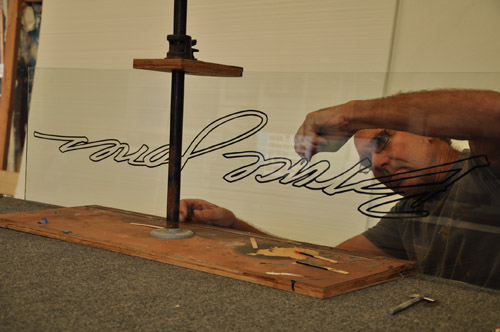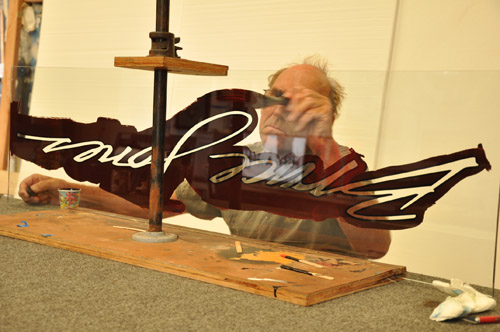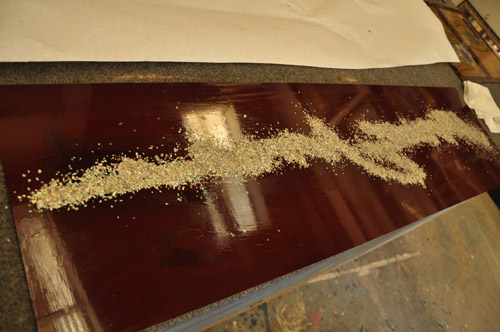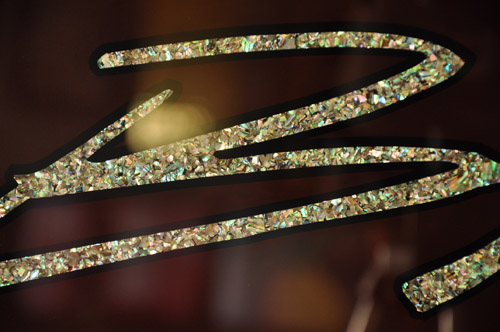
Paua Brocade glass sign
This is a glass sign for a friend that has a surf shop in Orange County. I started with black outlines , Painted the dark maroon background in and now I'am laying in the Paua Brocade. I'll let that dry awhile then give it one more coat of brocade then it go's into a frame.
I left the sign out in the sun to dry all day then went to my framer and picked up the frame. Here it is finished and ready to deliver tomorrow.
The size is 15 x 36
I like the flow of your lettering, Roderick.
Is Paua Brocade same as mother of pearl? What do you use for size?
I didn't design it but I do agree it does have a nice flow. Paua brocade is crushed up abalone thats left over from making the sheets. I glue it down with frog juice. Just be careful because the Frog Juice is pretty hot stuff. Sometimes it will curl the One shot.
OH MY..... Roderick, you just made the hairs on the back of my neck stand up. I have not seen or heard that name in over 20 years, Bruce Jones!! Mr Jones made my first ever custom windsurfer a long time ago. I supplied the specs and the graphics and they turned my vision into my most favorite board ever. If I remember correctly that was the same signature on the board....such a small world!!
Roderick, so you paint the black outline(glass gilders backup from Letterhead supply?) and then maroon 1shot(hardner?) and then frogjuice...what method? i have never used the Juice
but i've had a little baggie of the abalone chips for quite awhile, never knew how to deal with it, it was just so pretty, had to get it!
Paint the black outlines using a mask and one shot w/ hardner. Or paint em by hand with one shot. I wouldn't use backup paint unless I was.......Backing up.
Paint the marron background w/ one shot
paint the frog juice on in the clear windows. You could use any thick clear to do this. Once you have the clear painted just sprinkle the flacks on. if it needs another coat wait till it's dry and do it again.
Frog is a hot clear so you might get some lifting. I've also used clear epoxy to do this.